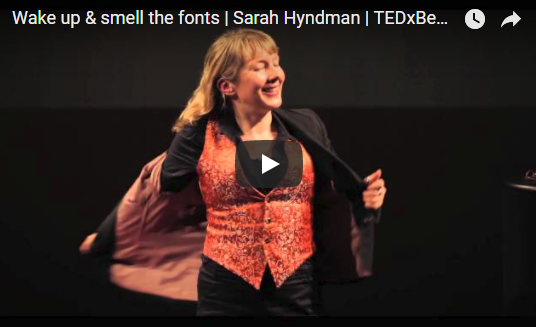
Your Fonts Smell!
Sarah Hyndman, an expert in multi-sensory typography, gave a TED Talk titled, "Wake up and smell the fonts."
She shows us that fonts affect more than just a reader's sense of sight. People also tend to associate fonts with specific tastes and smells.
So what does your website content smell and taste like?
Thanks for sharing Glen, I loved the presentation. When I was working for the New Zealand Government, we were introduced to the power of fonts in the 1990's. We had a corporate identity manual that stipulated the fonts to be used on all official documentation and external correspondence. We had to conform to uniformity. Our acceptable font back then changed from Courier New to Arial then to Times New Roman. These days, I personally use Verdana.
Hi Glen, yes indeed all rather strange. This uniformity was perhaps a message directed to us than externals, a subconscious attempt - and very much unconstitutional - by the Executive to influence and undermine the role and the purpose of the Public Service. We knew that of course, so we fonted how we wanted whenever we could get away with it!